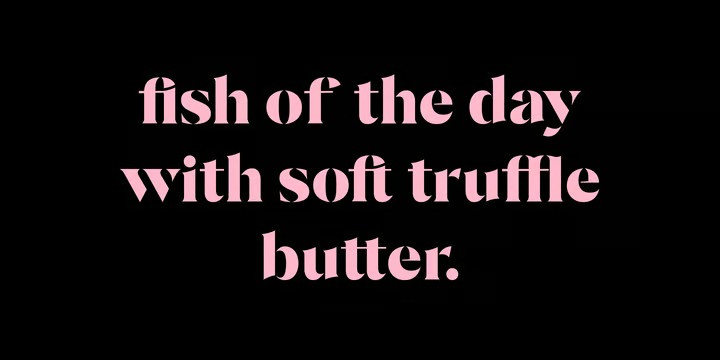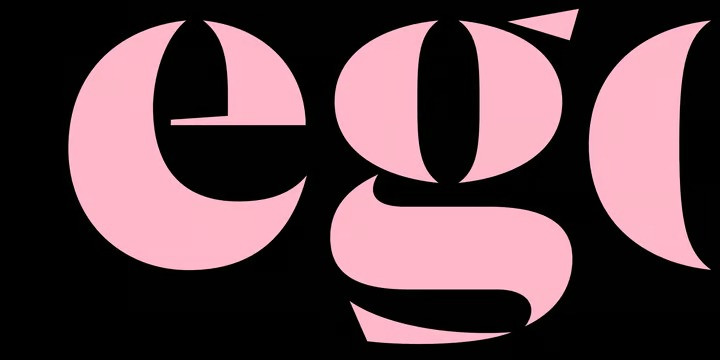
Céline Font
Céline Serif Font is an elegant stencil serif with contrast. The font has classic proportions with bold serifs and fading thin lines. Céline is a one weight stencil display typeface with plans to expand the family with multiple weights and non stencil versions. Céline includes some language support, standard and discretionary ligatures. I hope you enjoy it as much as I did making it.